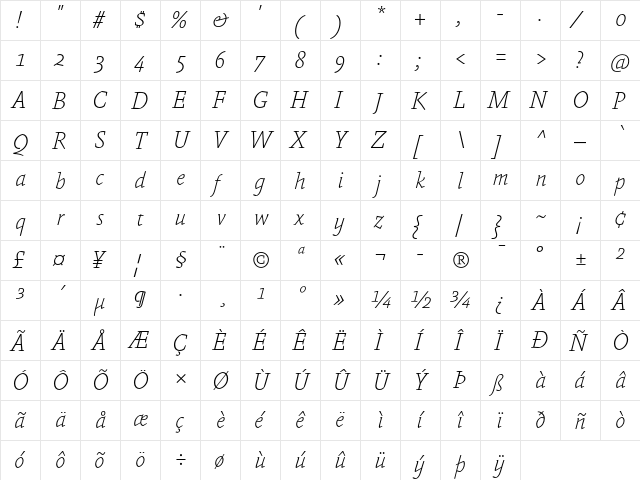
Absara Thin Italic Font Preview
Absara Thin Italic
Absara Thin Italic Font Details
Design Context for Absara Thin Typeface
Absara Thin offers clean, dependable letterforms without strong stylistic allegiance, making it a practical choice for designers who need flexibility. The slanted form adds forward momentum and visual energy. The delicate stroke weight brings airiness and refinement to layouts.
Pro Tip: Try Absara Thin for annotation and caption copy alongside an upright companion — the contrast in angle creates a dynamic but ordered typographic system.